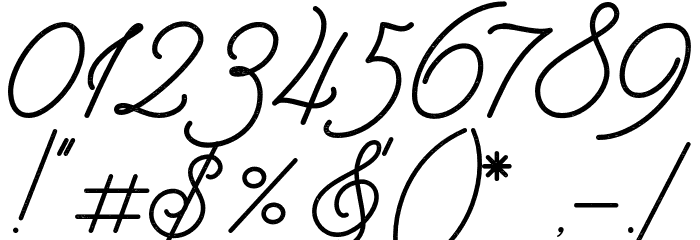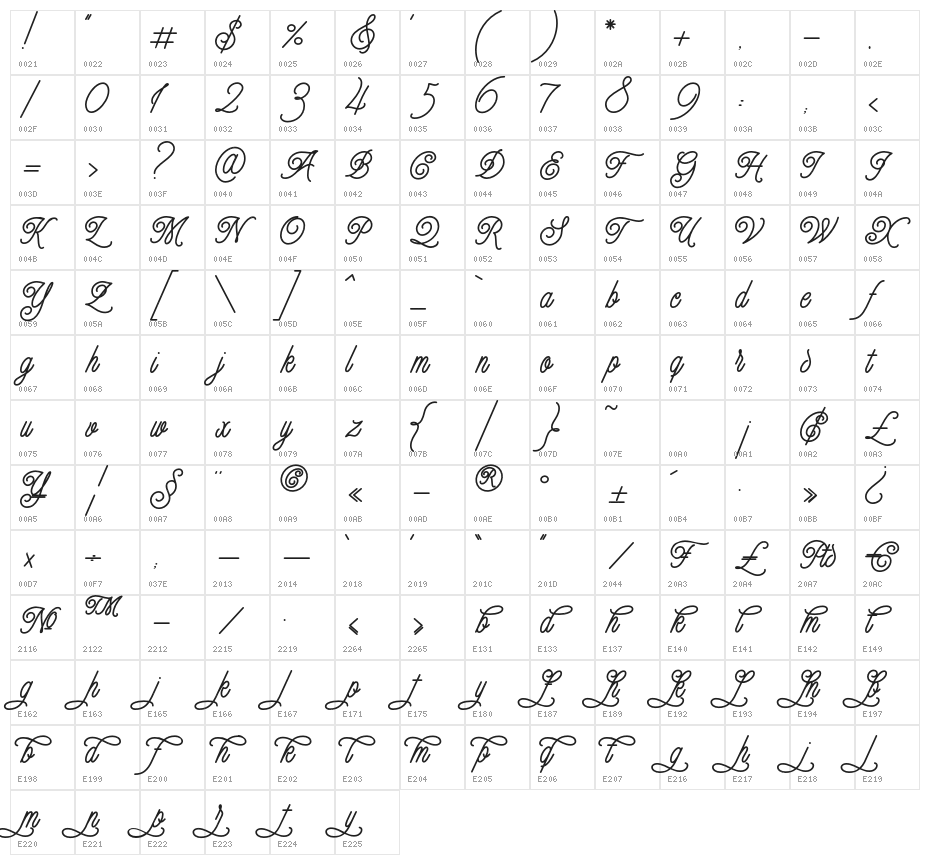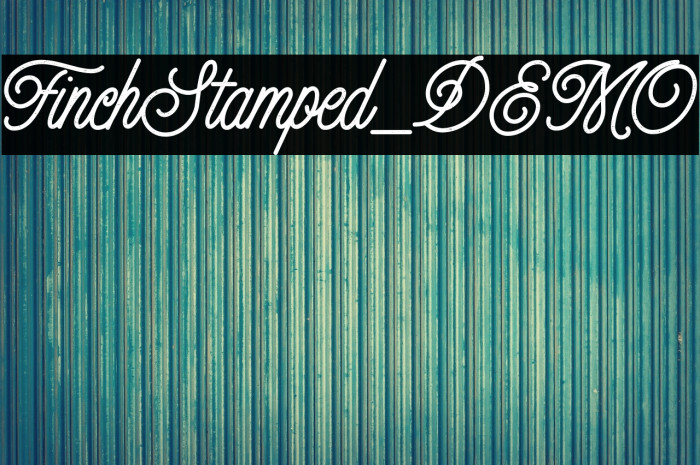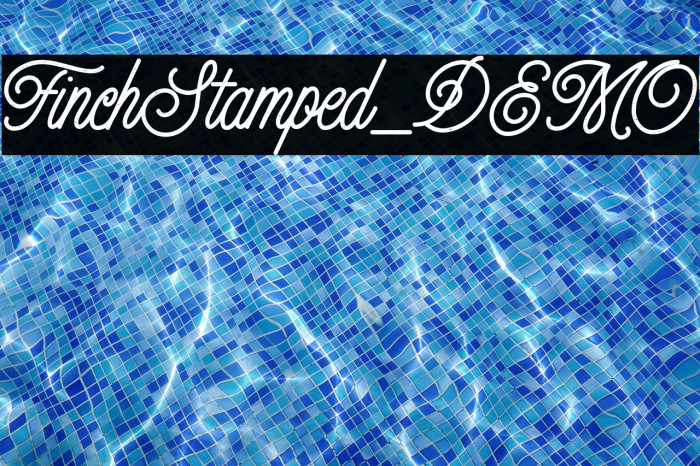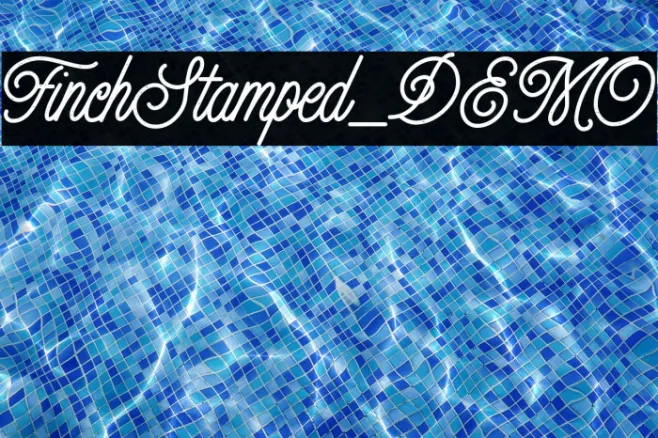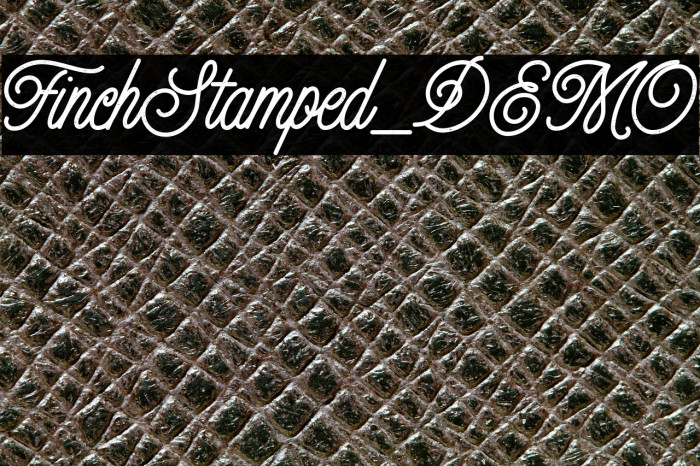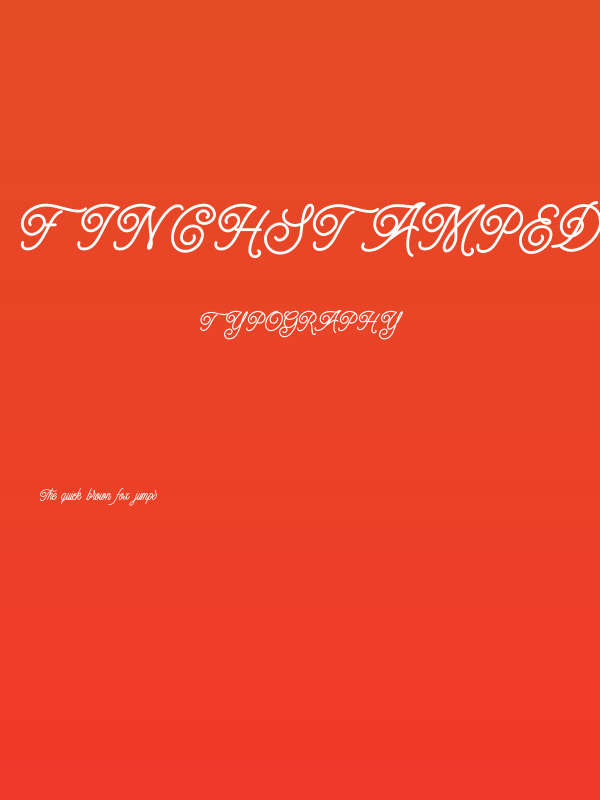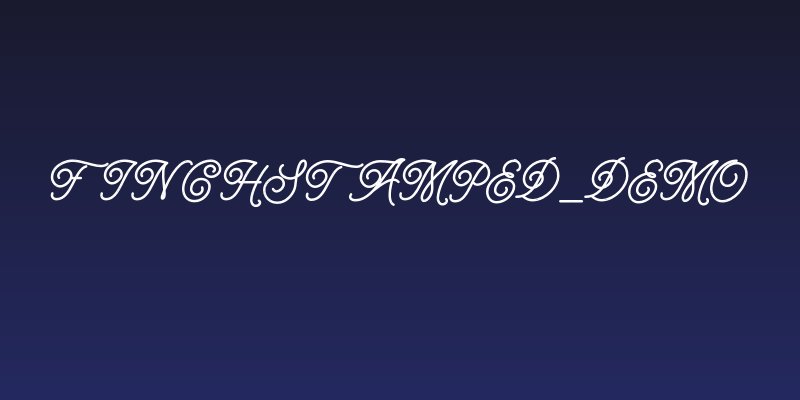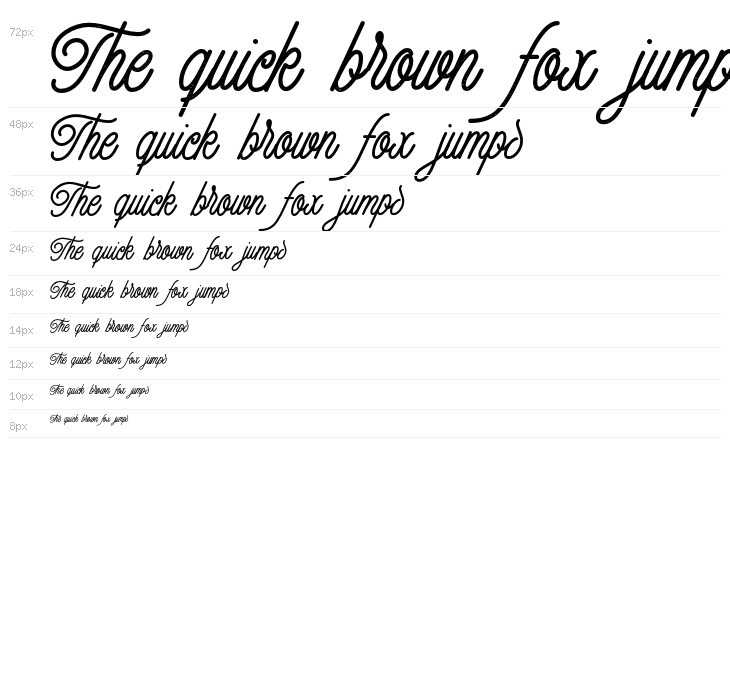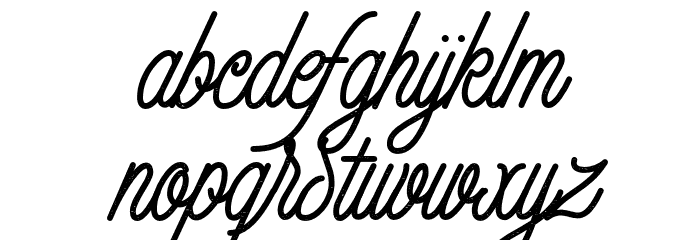
FinchStamped_DEMO Font
FinchStamped_DEMO Description
This font exudes a classic and elegant script style, characterized by its flowing, cursive letterforms. The uppercase letters are ornate with intricate loops and flourishes, giving them a sophisticated and decorative appearance. The lowercase letters maintain a smooth and connected style, enhancing readability while retaining a sense of elegance. The numerals and special characters are designed with similar attention to detail, featuring graceful curves and consistent stroke weights. This font is ideal for projects that require a touch of refinement and class, such as wedding invitations, formal event programs, or luxury branding.
| Use Case | Logos, Invitations, Decorative headings |
| Proposed Projects | Wedding invitations, luxury branding, formal event programs, elegant stationery. |